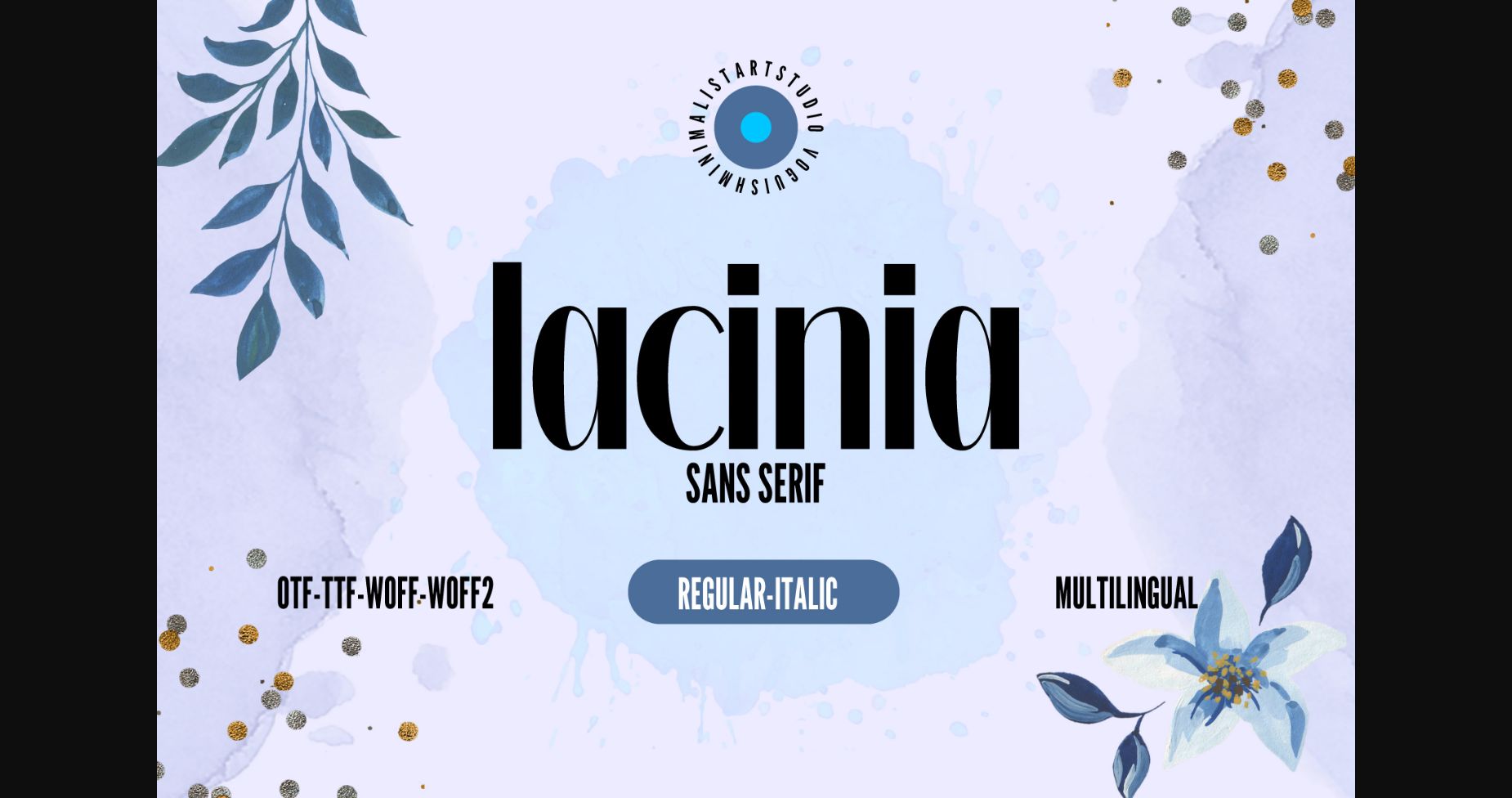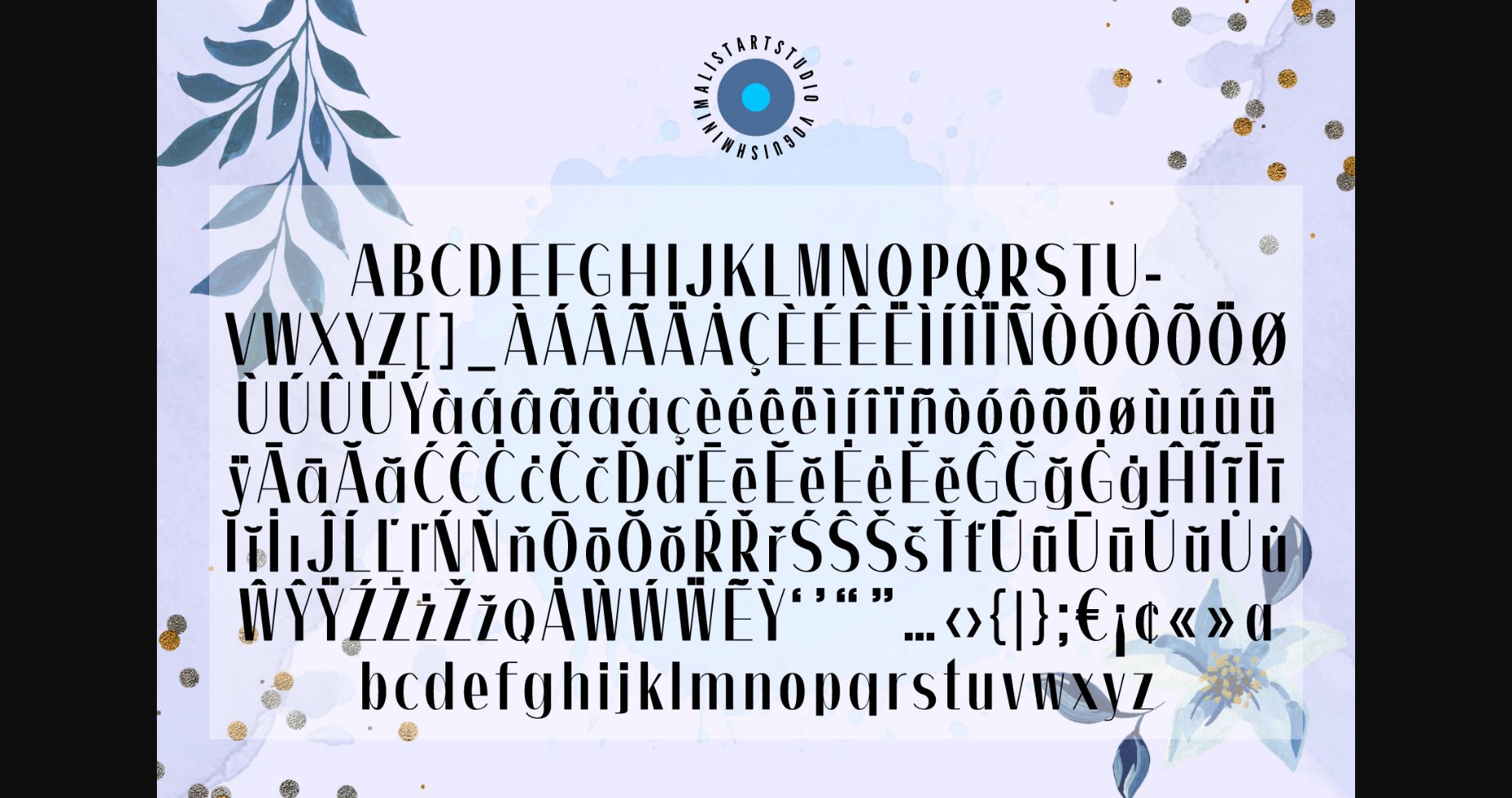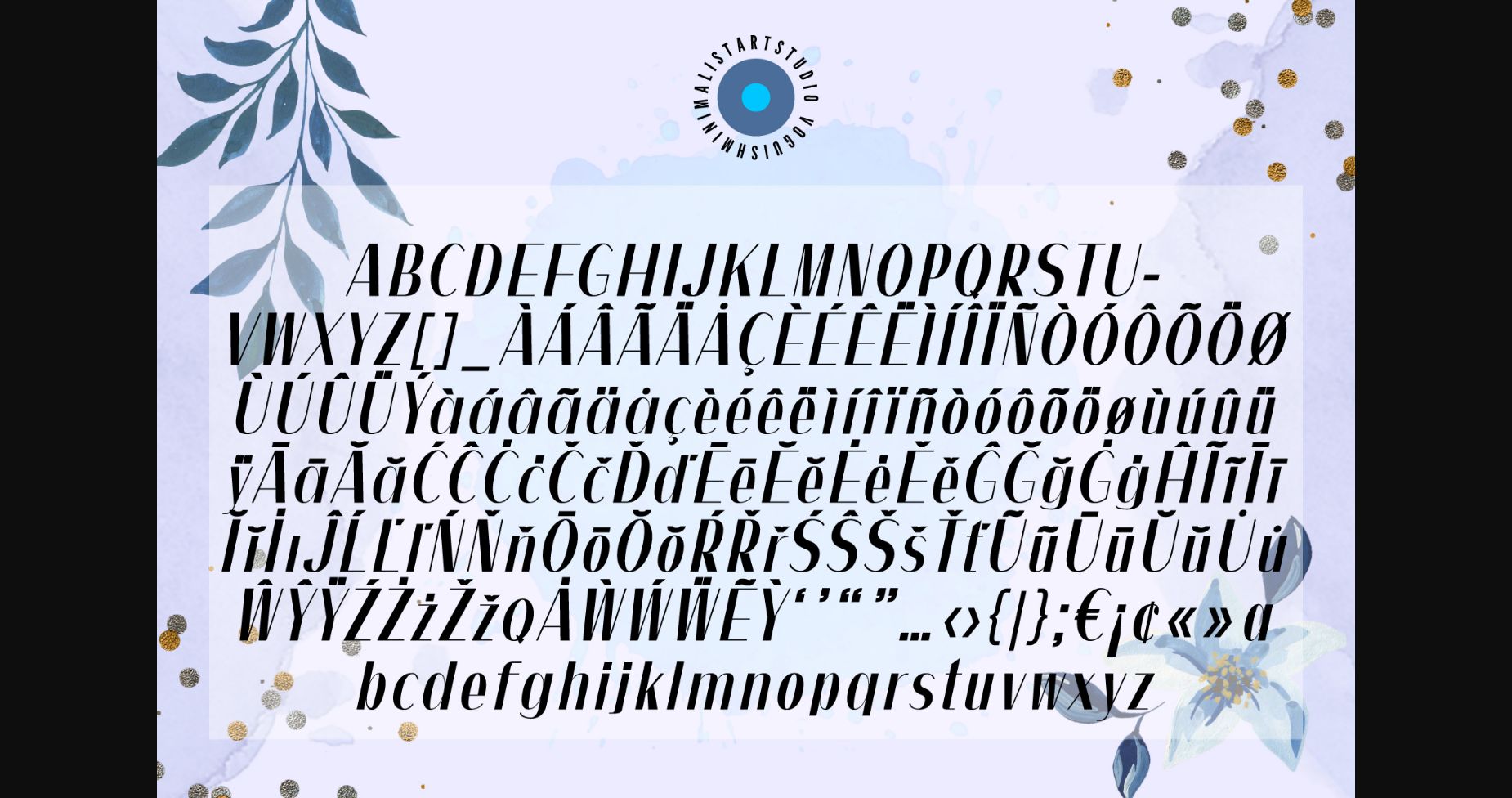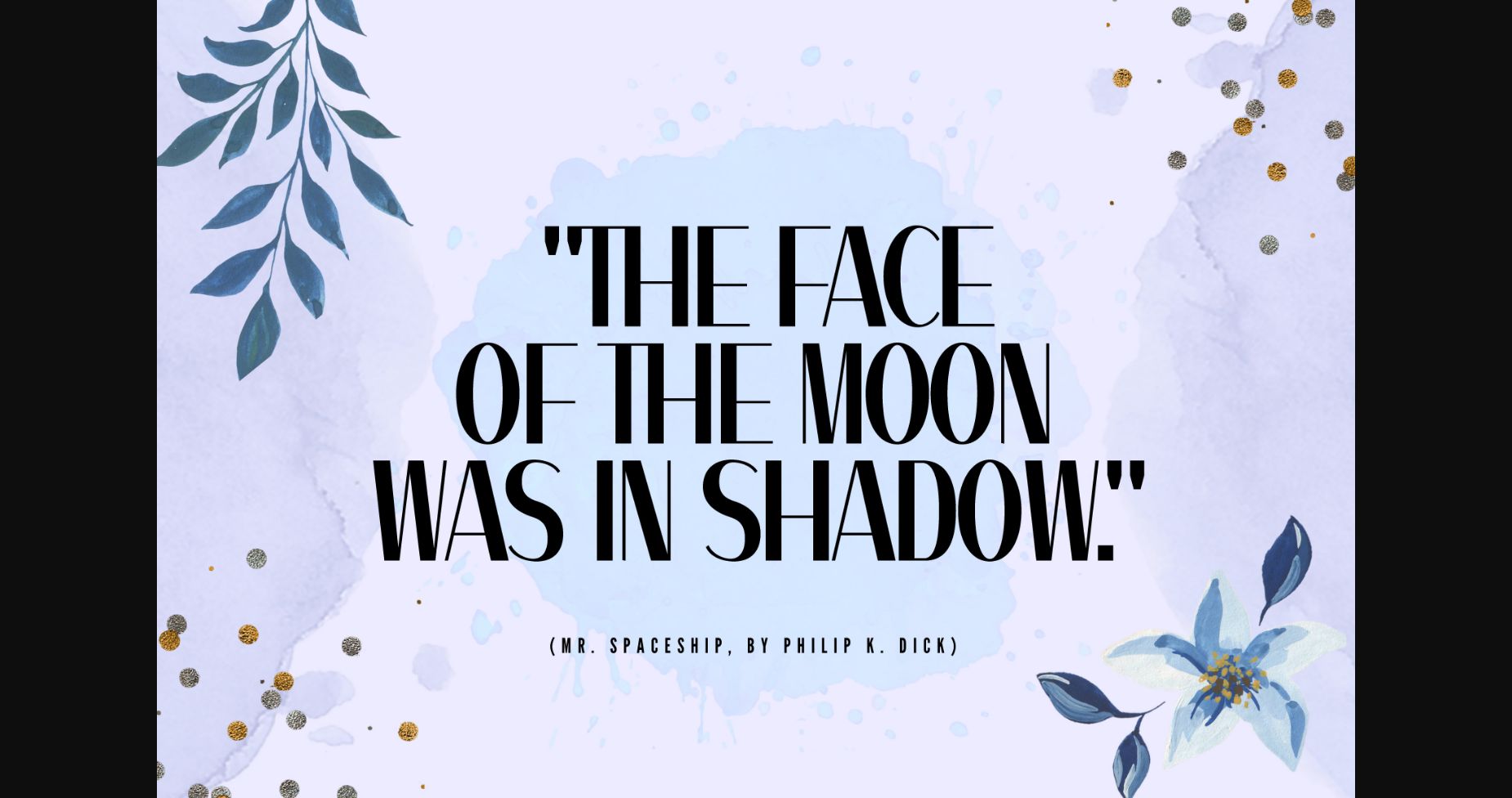
About Lacinia Font
Lacinia is a trendy, classy, and stylish sans serif typeface. Its fashionable character renders it a valid choice when you are up to designing elegant, stylish, and classy themes such as packaging design, posters, magazine covers, fashion design, banners, branding, etc. Use it in your creative ideas, and notice how it takes them to the next level!